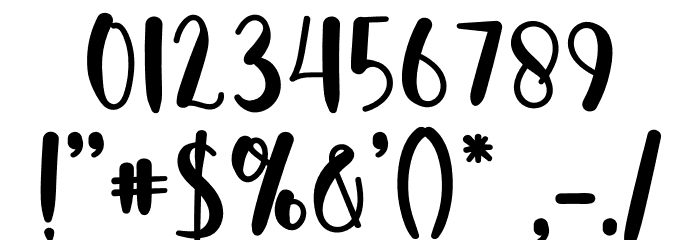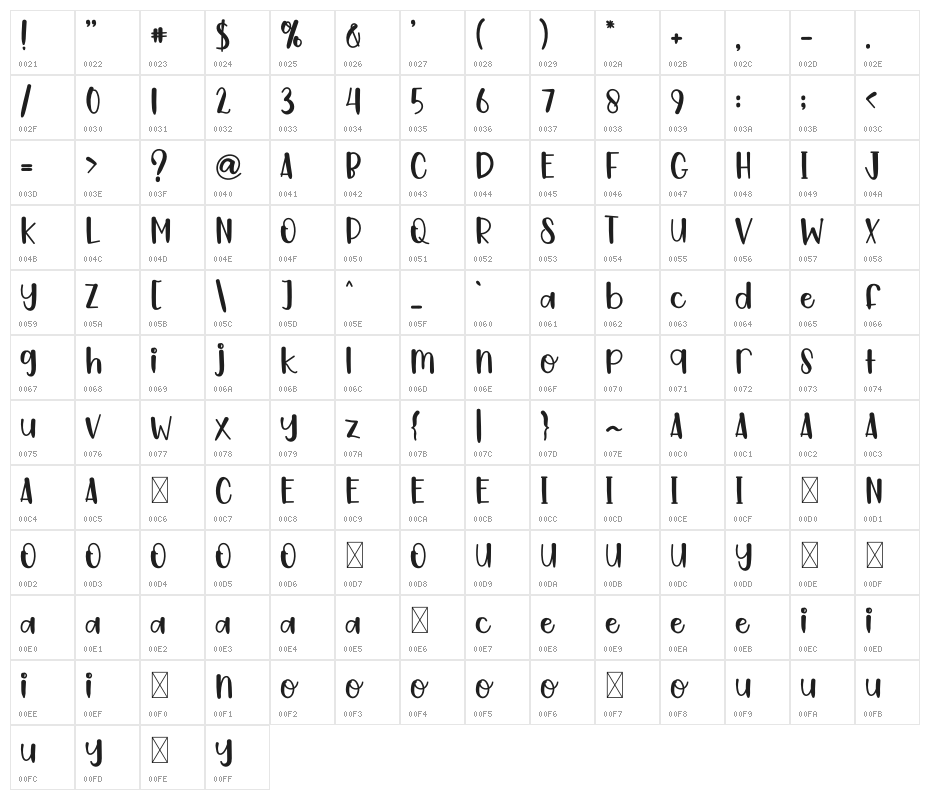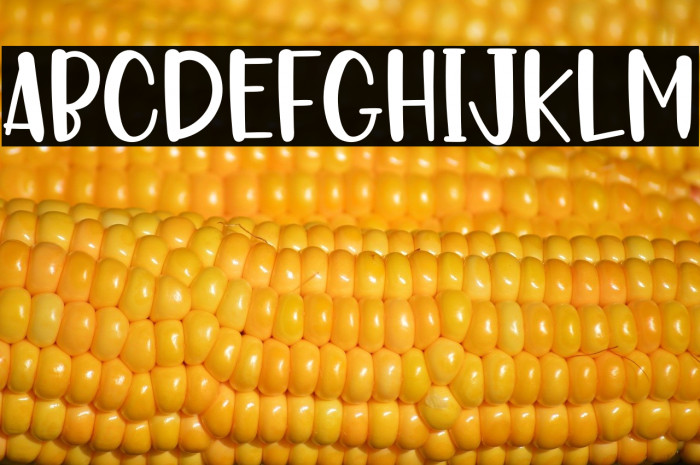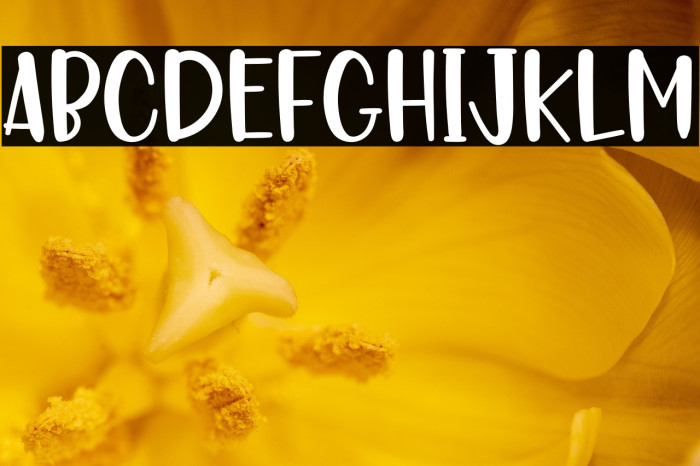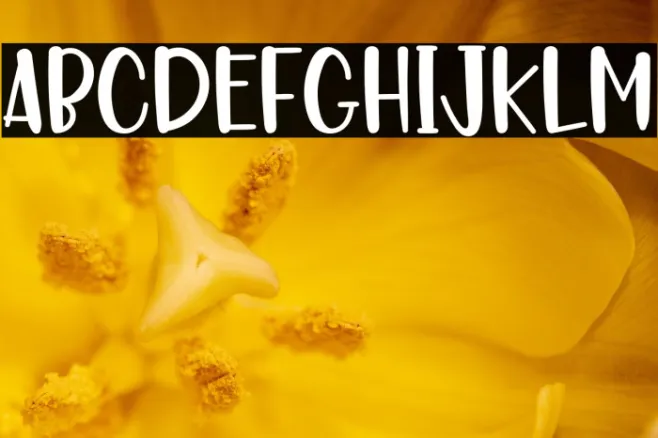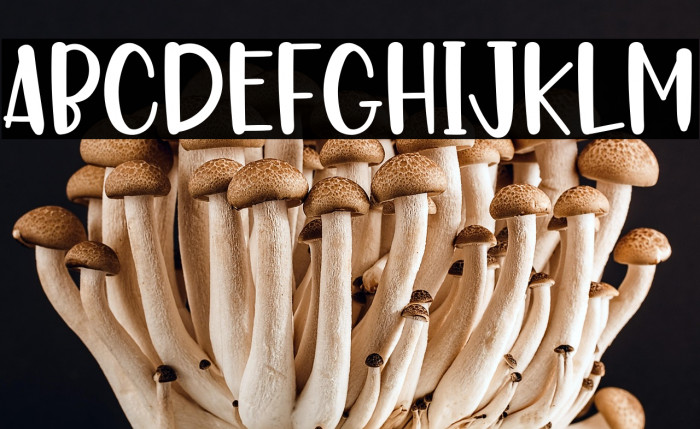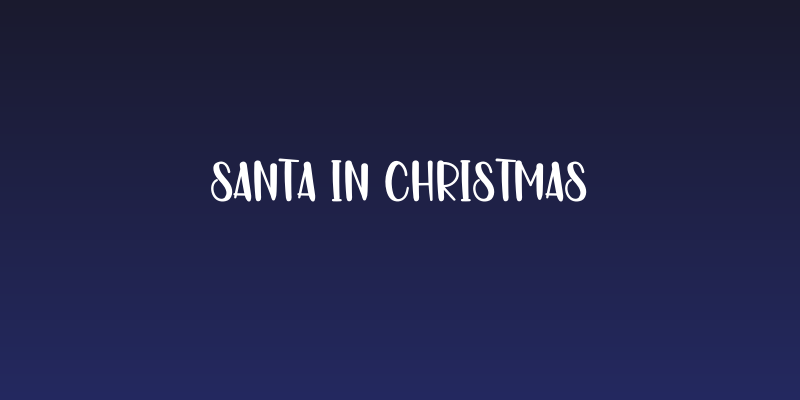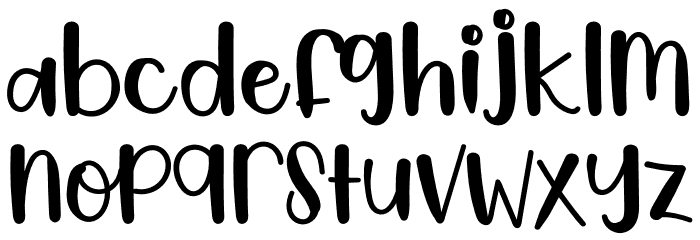
SANTA IN CHRISTMAS Font
SANTA IN CHRISTMAS Description
This playful and whimsical font features a handwritten style with bold, rounded strokes. The characters exhibit a casual and friendly appearance, making it ideal for festive and cheerful designs. The uppercase and lowercase letters maintain a consistent style, with a slight slant that adds to the font's dynamic feel. The numbers and special characters are equally bold and expressive, ensuring they stand out in any design. This font's unique character shapes and lively personality make it perfect for projects that require a touch of fun and creativity.
| Proposed Projects | Ideal for holiday cards, children's book covers, party invitations, and playful branding. |